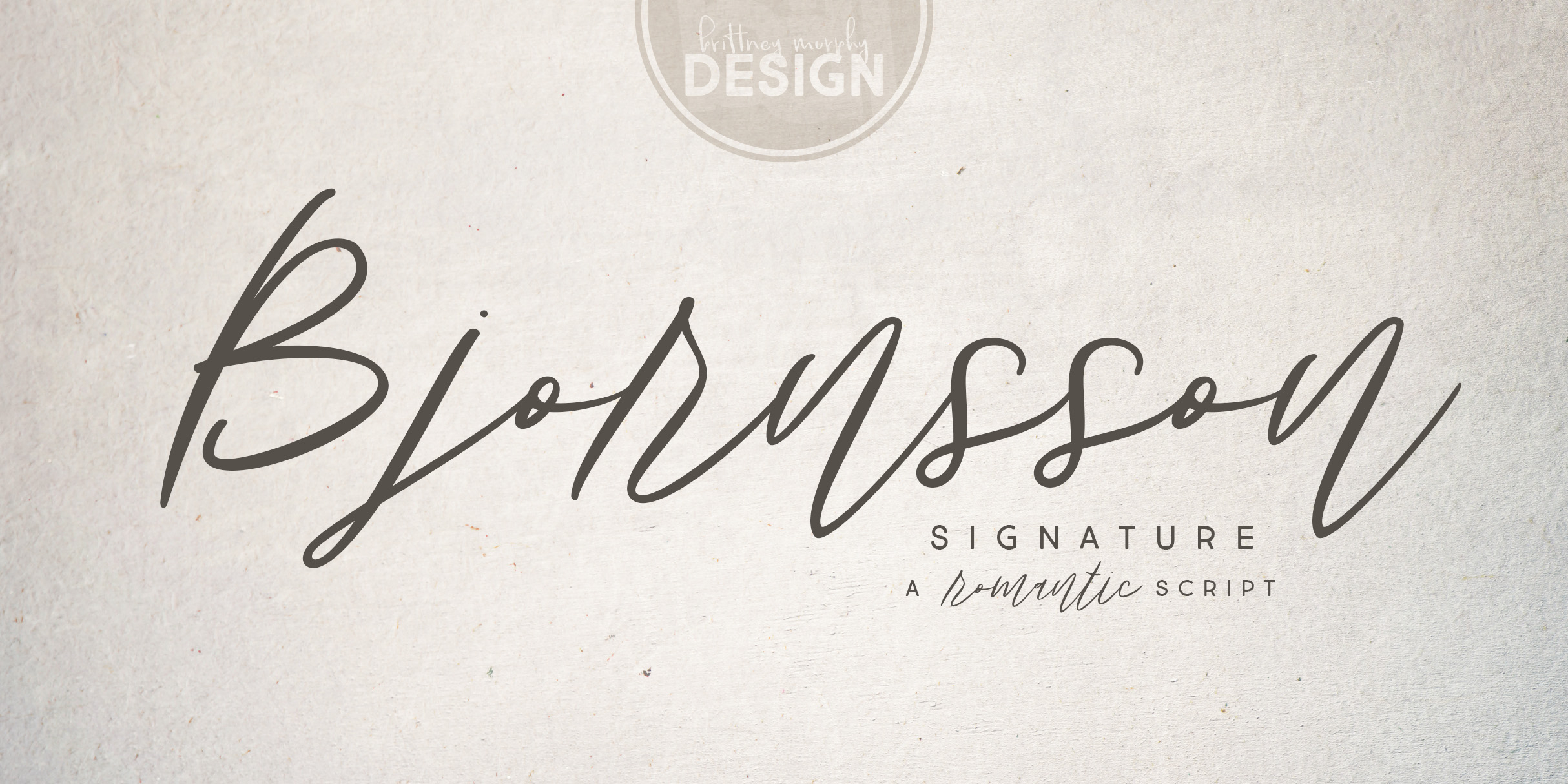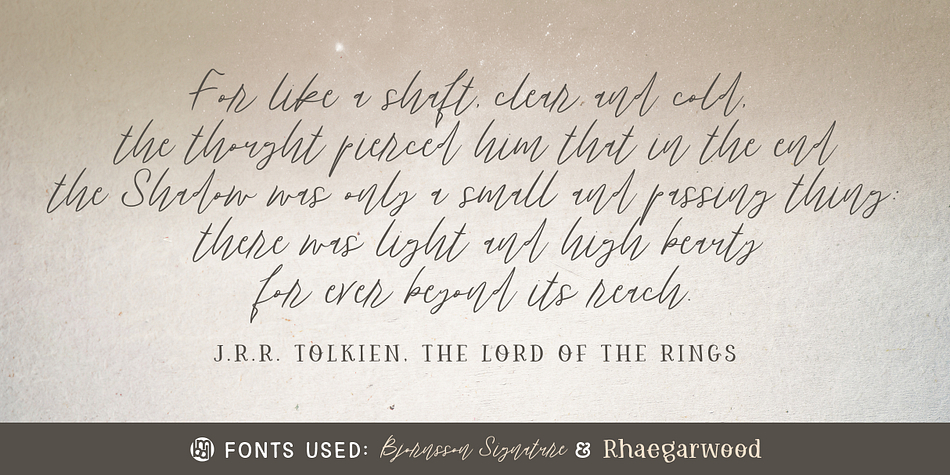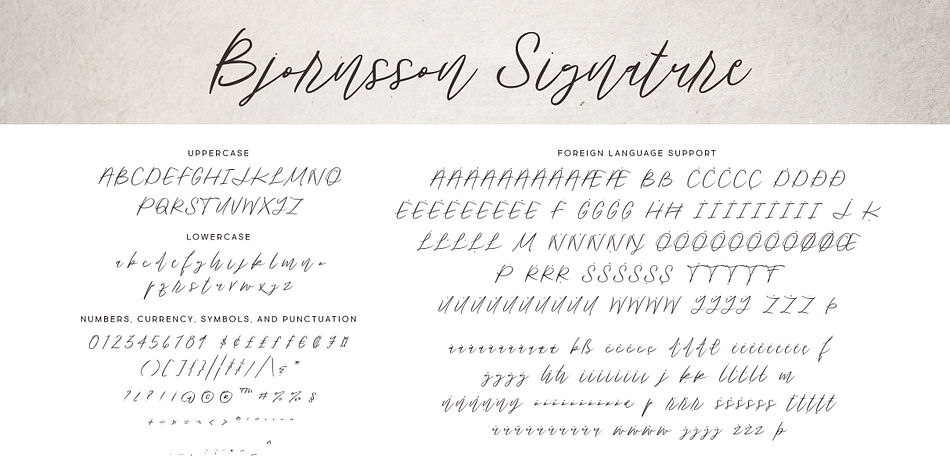
Bjornsson Signature
Designed by Brittney Murphy, Bjornsson Signature is a hand drawn font family published by Brittney Murphy Design.
Bjornsson Signature is a smooth romantic script. Comes with over 300 glyphs and includes support for most Latin-based languages as well as numerous numbers and symbols.